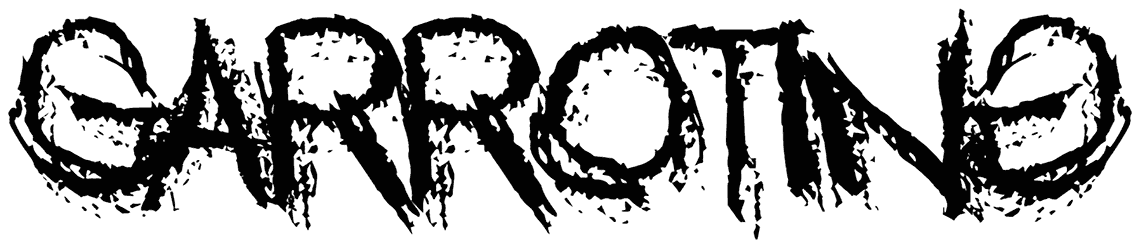
Garroting Font
The exciting thing about Garroting font is that it defies easy perception and can draw the audience in. This destroy font is rebellious and refuses to conform to standard norms.
Therefore, it can create an attention-seeking design for you that asks the audience to look at it from a closer distance. For this reason, the absence of small letters cannot limit your creativity and gives you the courage to glimpse a world beyond the ordinary in designing posters, t-shirts, and advertisements.